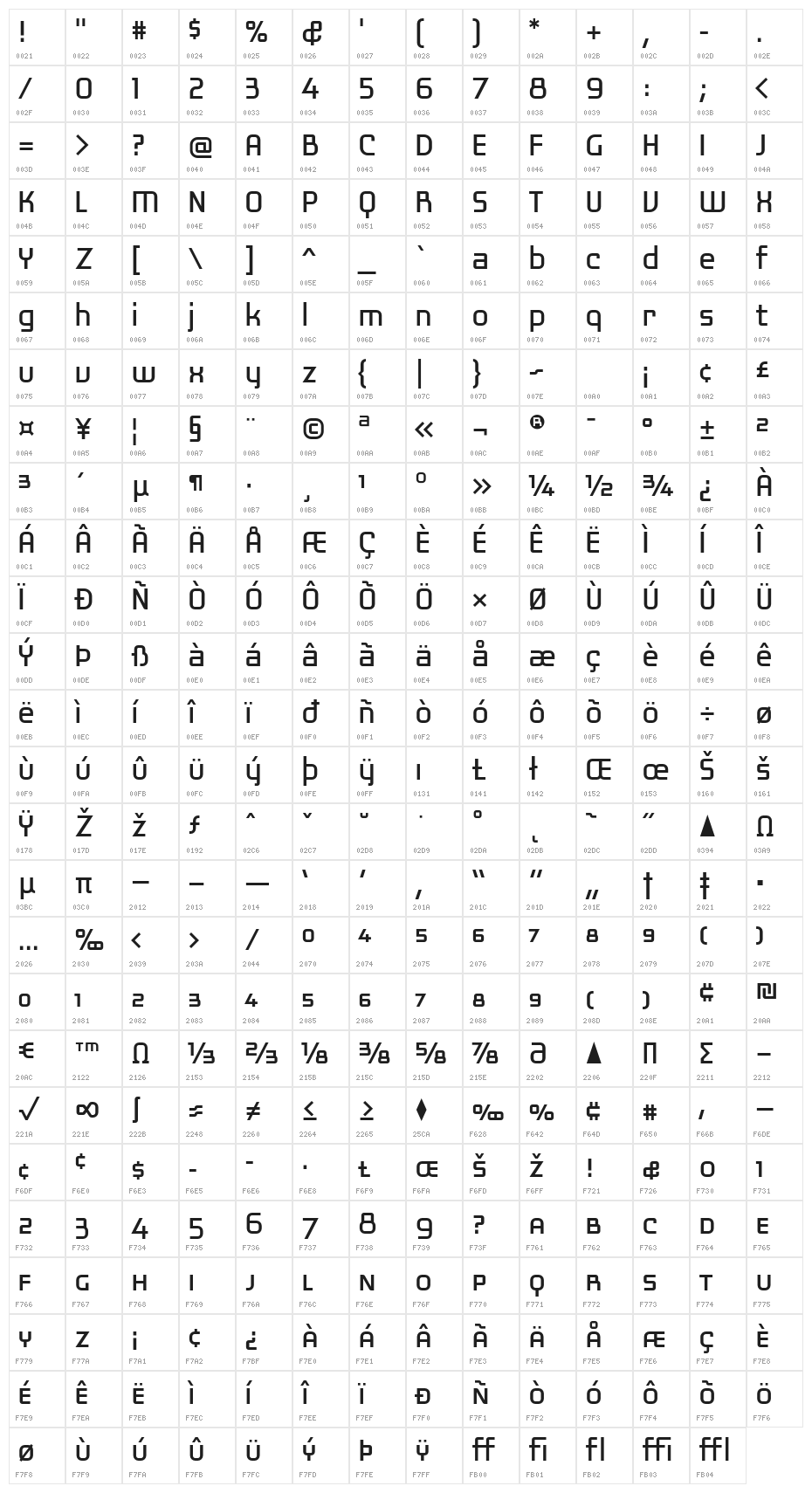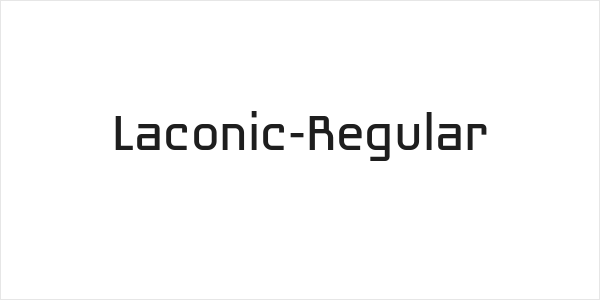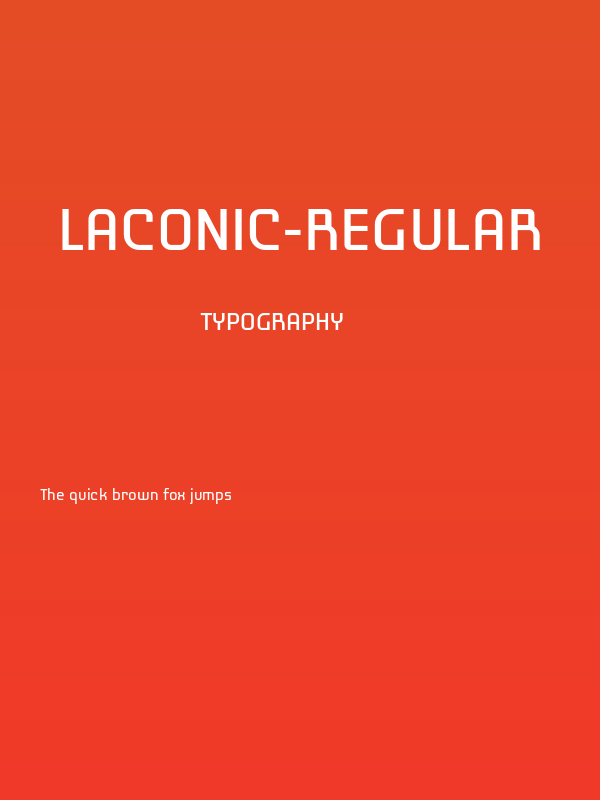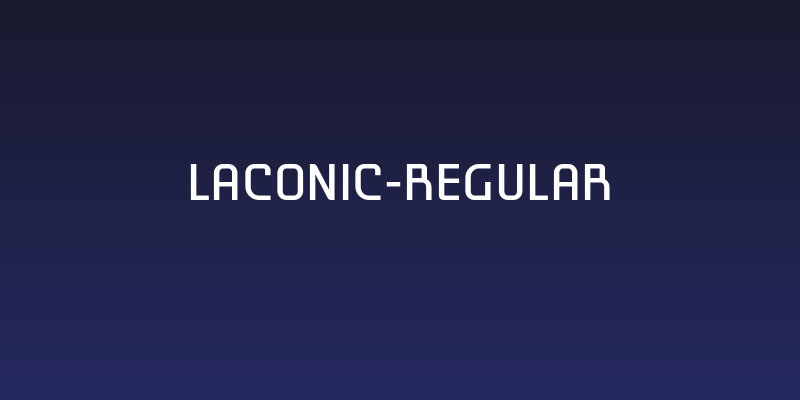
Laconic-Regular Font
Laconic-Regular Description
This font features a modern, geometric design with a clean and structured appearance. The characters are uniform in width, giving it a monospaced feel, although it is not strictly monospaced. The uppercase letters are bold and assertive, while the lowercase letters maintain a consistent height and width, enhancing readability. The numerals are distinct and easy to distinguish, making them suitable for technical or digital contexts. Special characters are well-defined, complementing the overall aesthetic. The font's simplicity and clarity make it versatile for various applications.
Proposed ProjectsIdeal for digital interfaces, technical documents, branding, and modern web design.